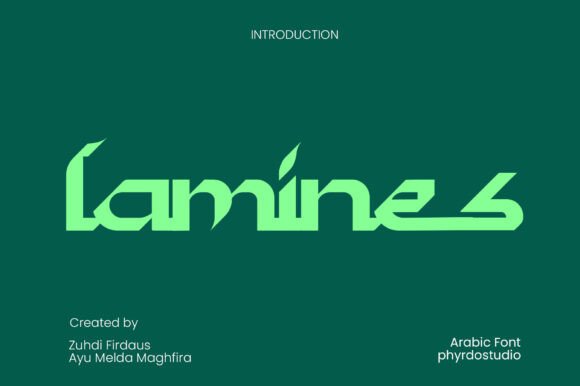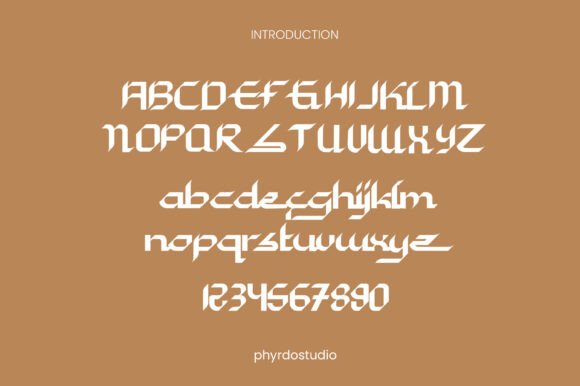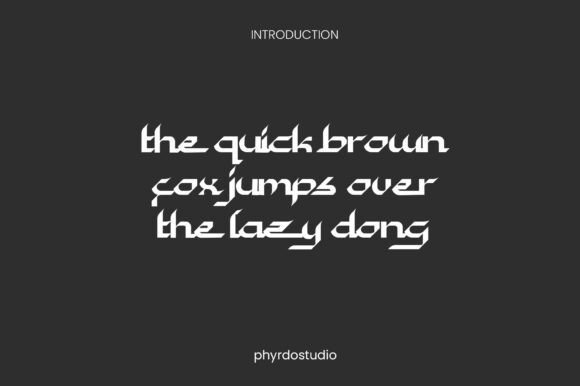
Lamines Font
About the Lamines Font
The wait is over! The incredible Lamines Font is now available for your design toolkit. This font features an Arabic-inspired style with a slightly rigid structure and moderately bold strokes. Its letterforms are firm and defined, creating a sense of stability and strength while maintaining the artistic essence of traditional Arabic script. The design leans more towards geometric and angular shapes rather than soft curves, giving it a classic yet modern feel. It’s ideal for titles, Islamic-themed logos, religious posters, or any graphic work aiming to convey a Middle Eastern aesthetic that is both elegant and bold.
Lamines Font Usage Examples
Lamines Font Example